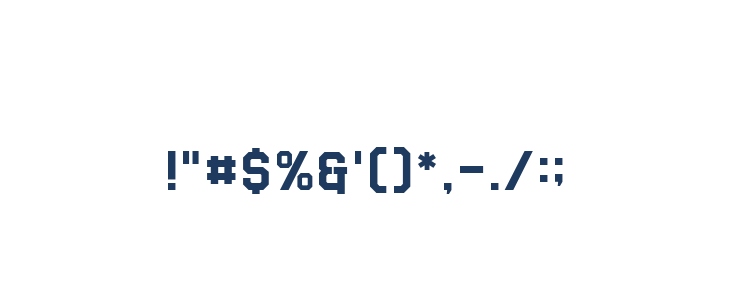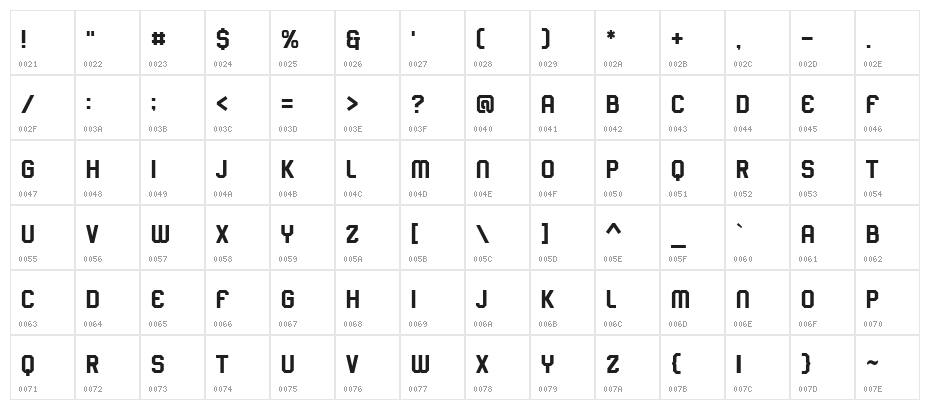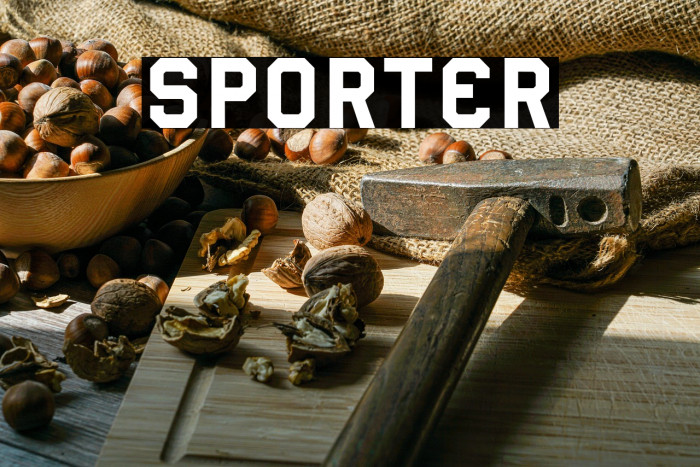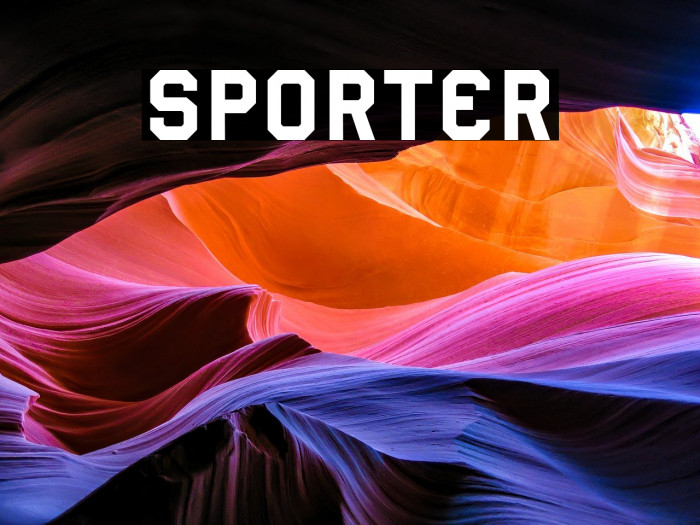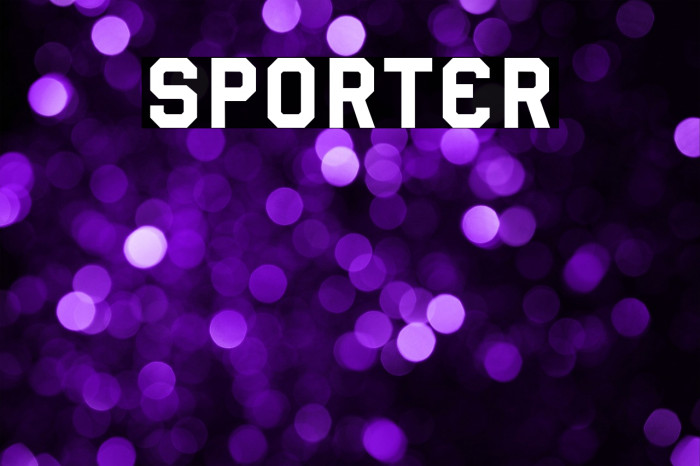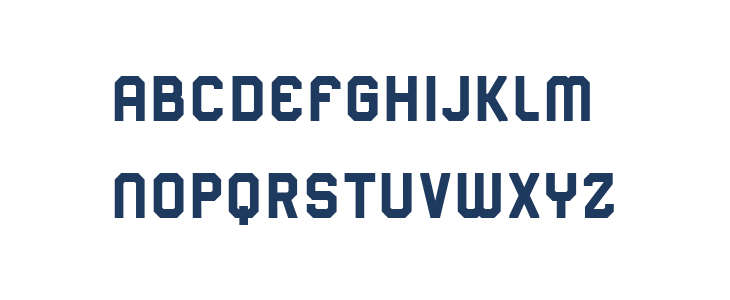
Sporter Font
Sporter Description
This font features a bold, geometric style with a strong, athletic aesthetic. The characters are constructed with thick, block-like strokes, giving them a robust and impactful appearance. The angular design and uniform stroke width contribute to a modern and dynamic feel, making it ideal for sports-related themes. The uppercase letters are particularly striking, with sharp edges and a consistent height that enhances readability. The numerals and special characters maintain the same boldness and geometric structure, ensuring a cohesive look across all text elements. This font is well-suited for projects that require a strong visual presence and a sense of energy and movement.
| Use Case | Logos, Headlines |
| Proposed Projects | Ideal for sports branding, team logos, athletic apparel, and event posters. |